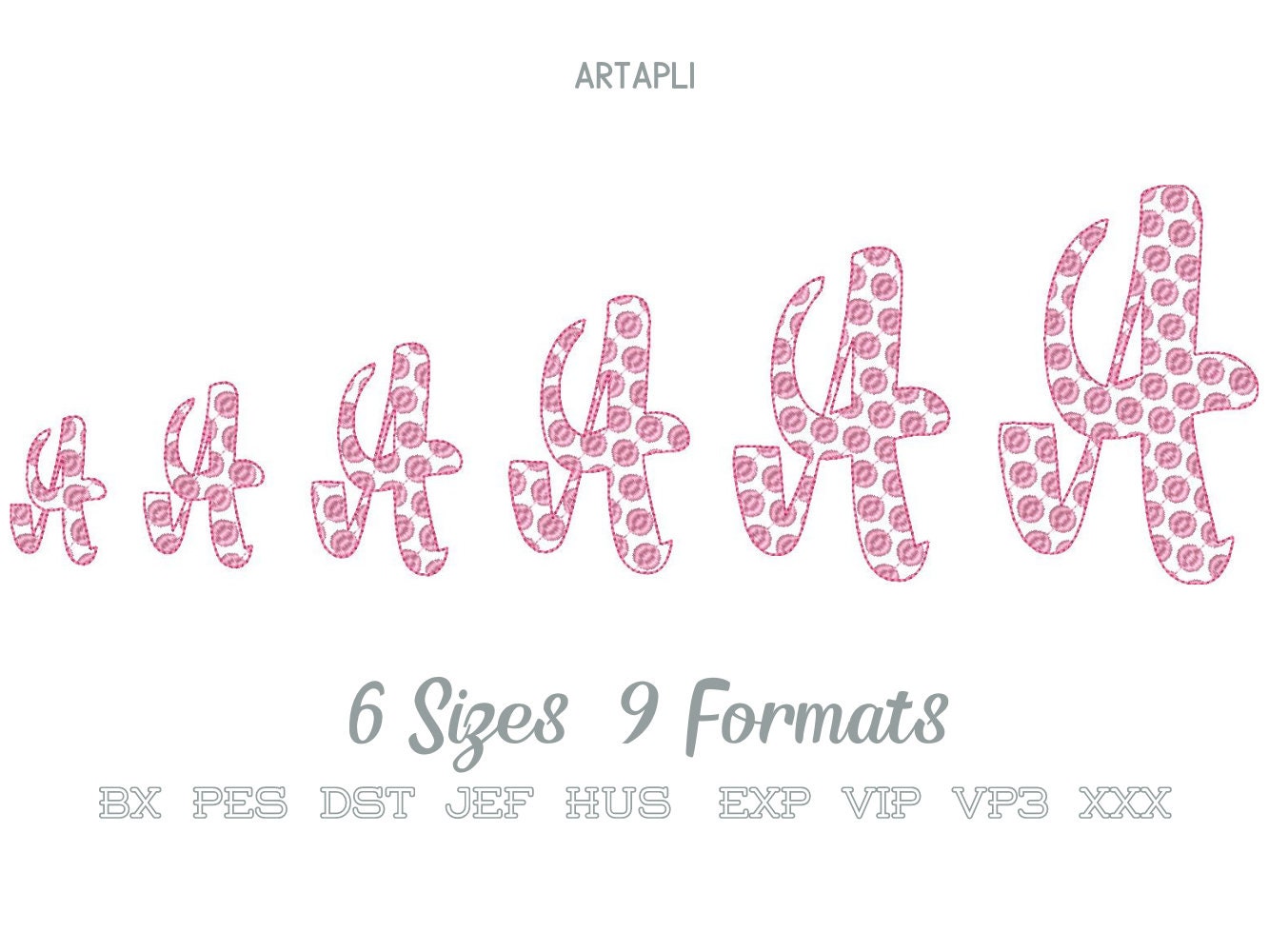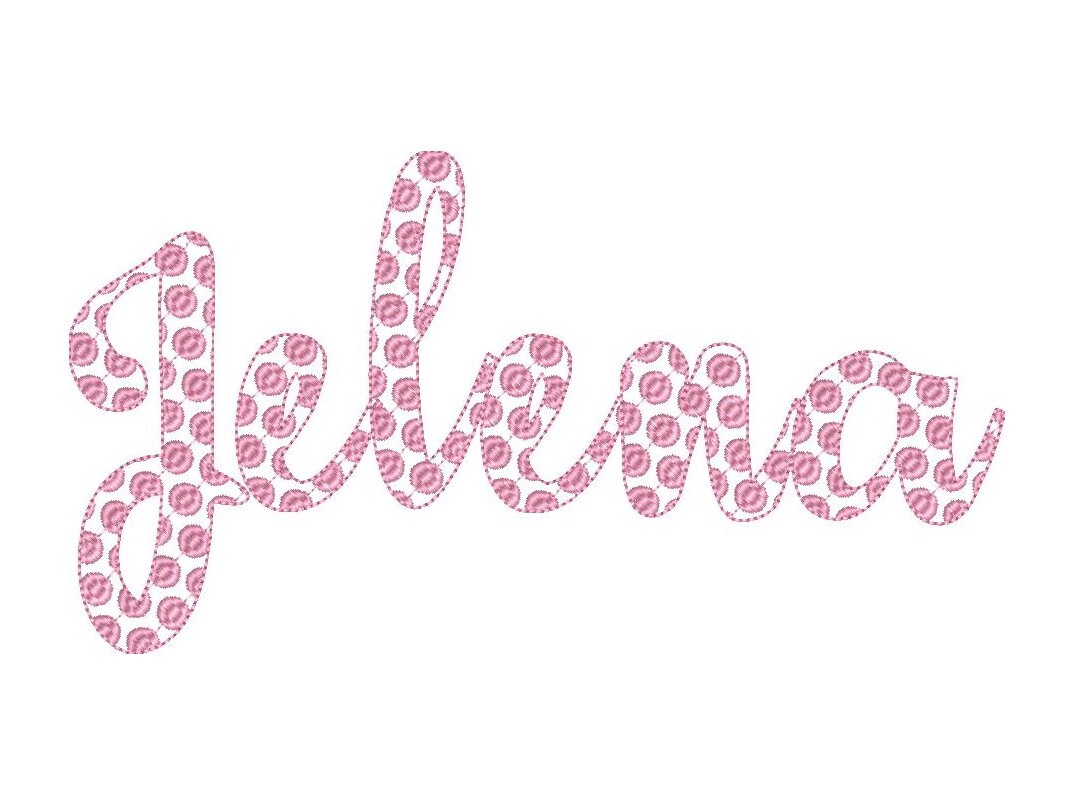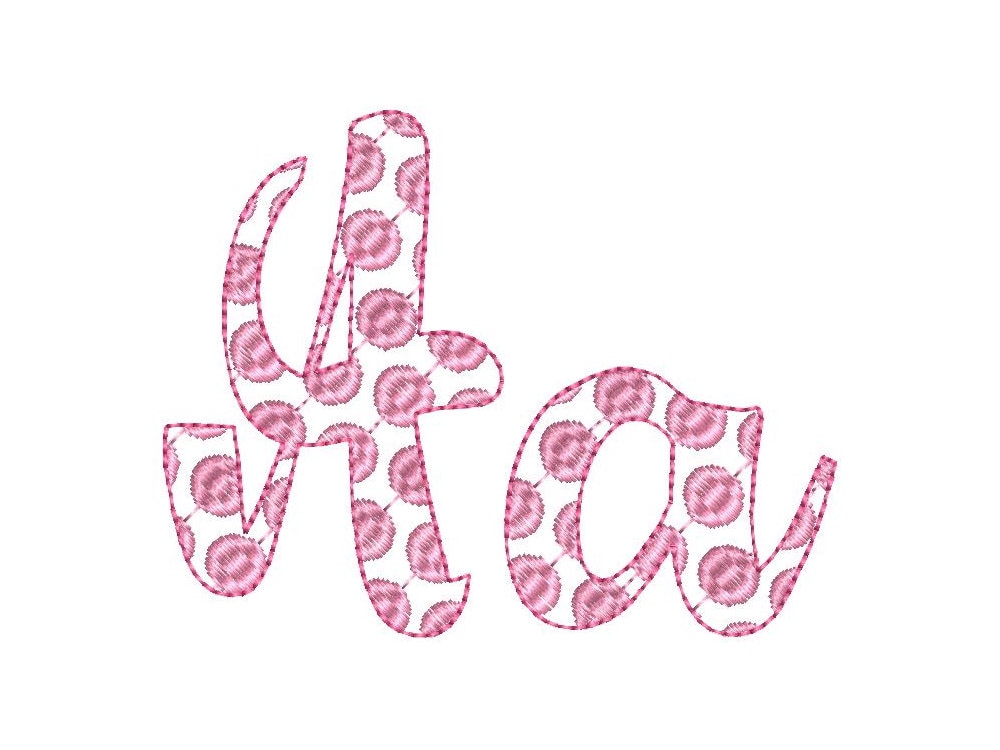
Polka Dot Font 2 two colors script cursive alphabet machine embroidery designs in assorted sizes dotted letters and numbers kids name font
The font is transparent and has fill stitch polka dots and a light bean stitch outline.